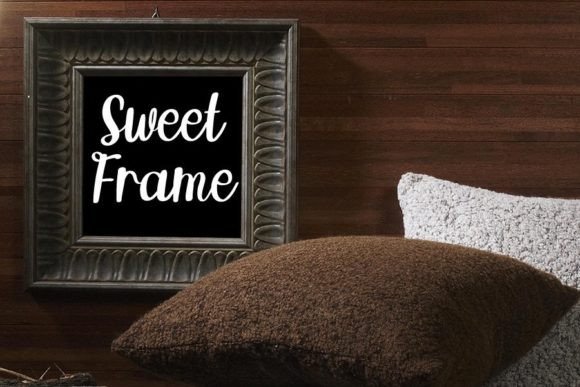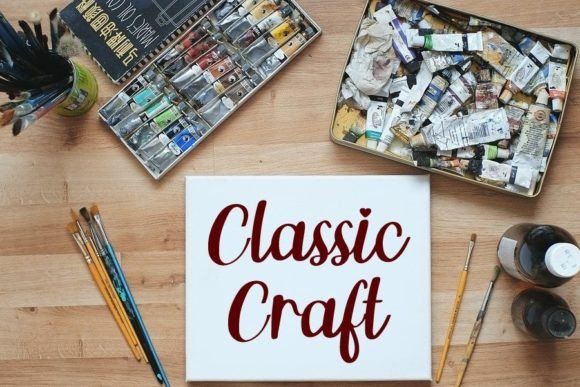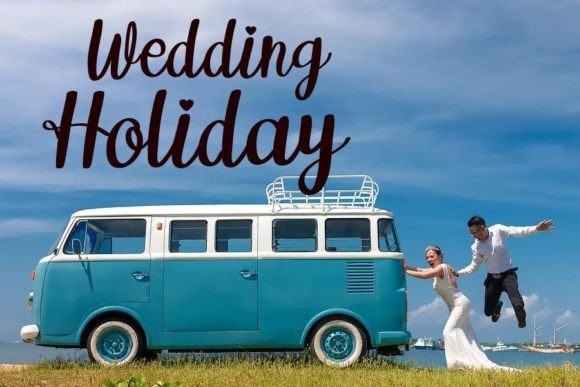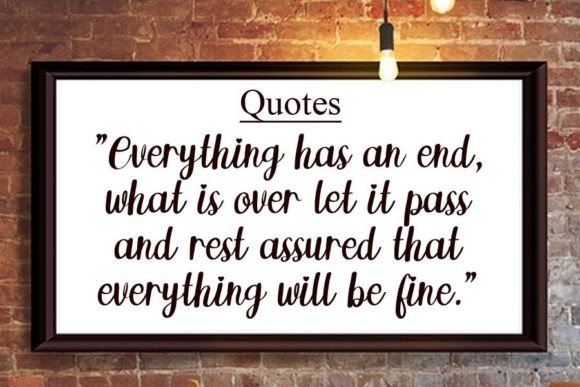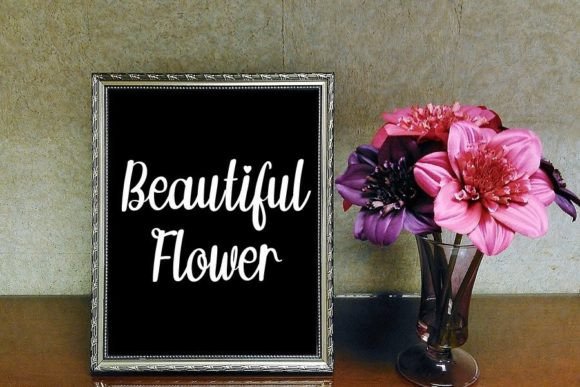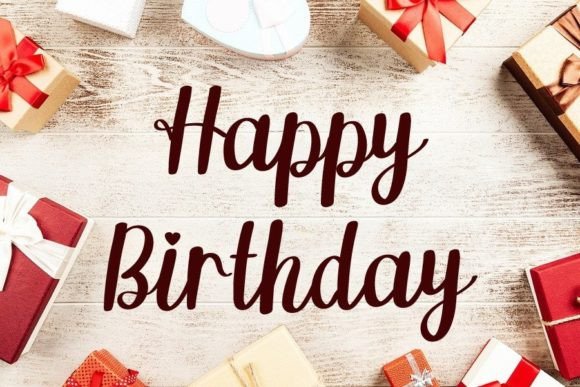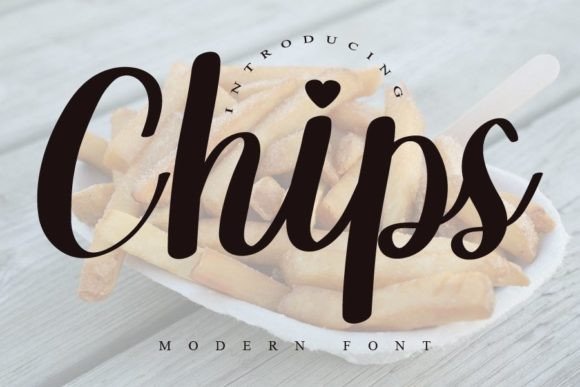
Introducing Chips Font: The Perfect Handwritten Font for Your Designs
Are you looking for a fresh and beautiful handwritten font to elevate your designs? Look no further than Chips Font! This stunning font is perfect for a wide range of design projects, from YouTube banners and covers to logos, mockups, wedding invitations, cards, flyers, and crafts. With its simple and unique style, Chips Font is sure to take your business to the next level.
What Makes Chips Font So Special?
Chips Font is a handwritten font that exudes a sense of elegance and sophistication. Its fresh and beautiful design makes it perfect for designers and crafters who want to add a personal touch to their work. The font is highly versatile, making it suitable for a wide range of design projects, from digital designs to print materials.
Key Features of Chips Font
- Handwritten style: Chips Font has a beautiful handwritten style that adds a personal touch to your designs.
- Fresh and beautiful design: The font has a fresh and beautiful design that will make your designs stand out.
- Highly versatile: Chips Font is suitable for a wide range of design projects, from digital designs to print materials.
- Easy to use: The font is simple to use and can be easily integrated into your design projects.
- Unique style: Chips Font has a unique style that will set your designs apart from the rest.
Uses of Chips Font
Chips Font is perfect for a wide range of design projects, including:
- YouTube banners and covers: Add a professional touch to your YouTube channel with Chips Font.
- Logos and branding: Create a unique and memorable logo for your business with Chips Font.
- Wedding invitations and cards: Add a touch of elegance to your wedding invitations and cards with Chips Font.
- Flyers and brochures: Create eye-catching flyers and brochures with Chips Font.
- Crafts and DIY projects: Add a personal touch to your crafts and DIY projects with Chips Font.
- Mockups and digital designs: Use Chips Font to create stunning mockups and digital designs.
Benefits of Using Chips Font
By using Chips Font, you can:
- Elevate your designs: Chips Font will add a touch of elegance and sophistication to your designs.
- Stand out from the crowd: The unique style of Chips Font will set your designs apart from the rest.
- Save time: Chips Font is easy to use and can be easily integrated into your design projects.
- Improve your brand image: Chips Font will help you create a professional and memorable brand image.
In conclusion, Chips Font is a fresh and beautiful handwritten font that is perfect for designers and crafters who want to add a personal touch to their work. With its simple and unique style, Chips Font is sure to take your business to the next level. Whether you’re looking to create stunning YouTube banners, elegant wedding invitations, or eye-catching flyers, Chips Font is the perfect choice.